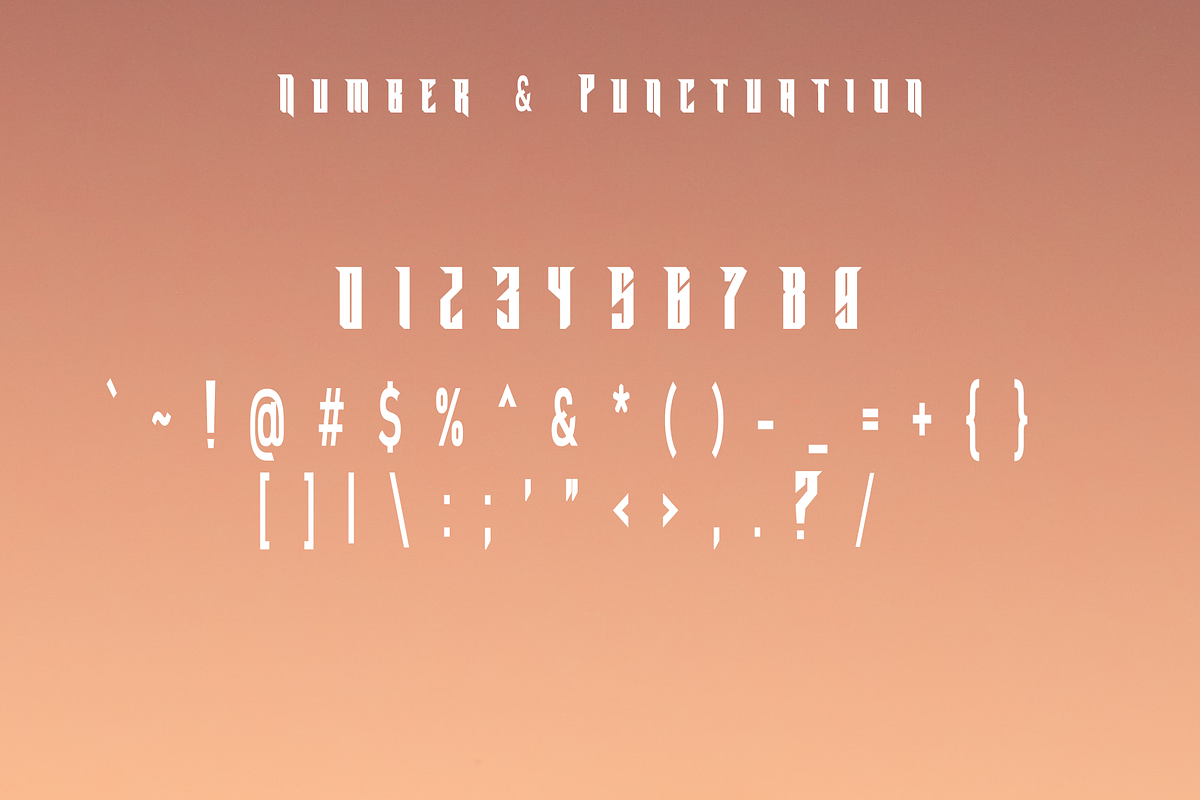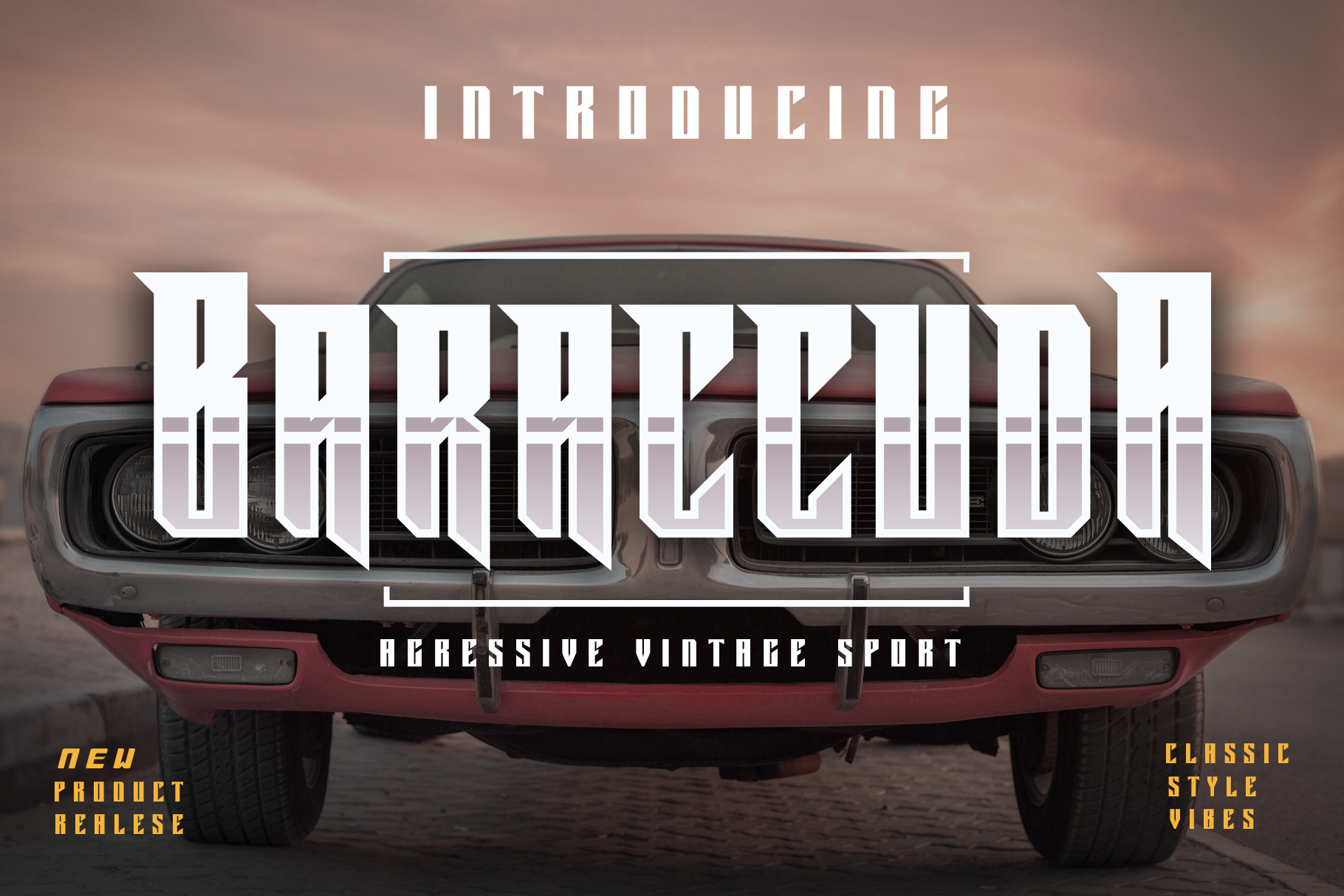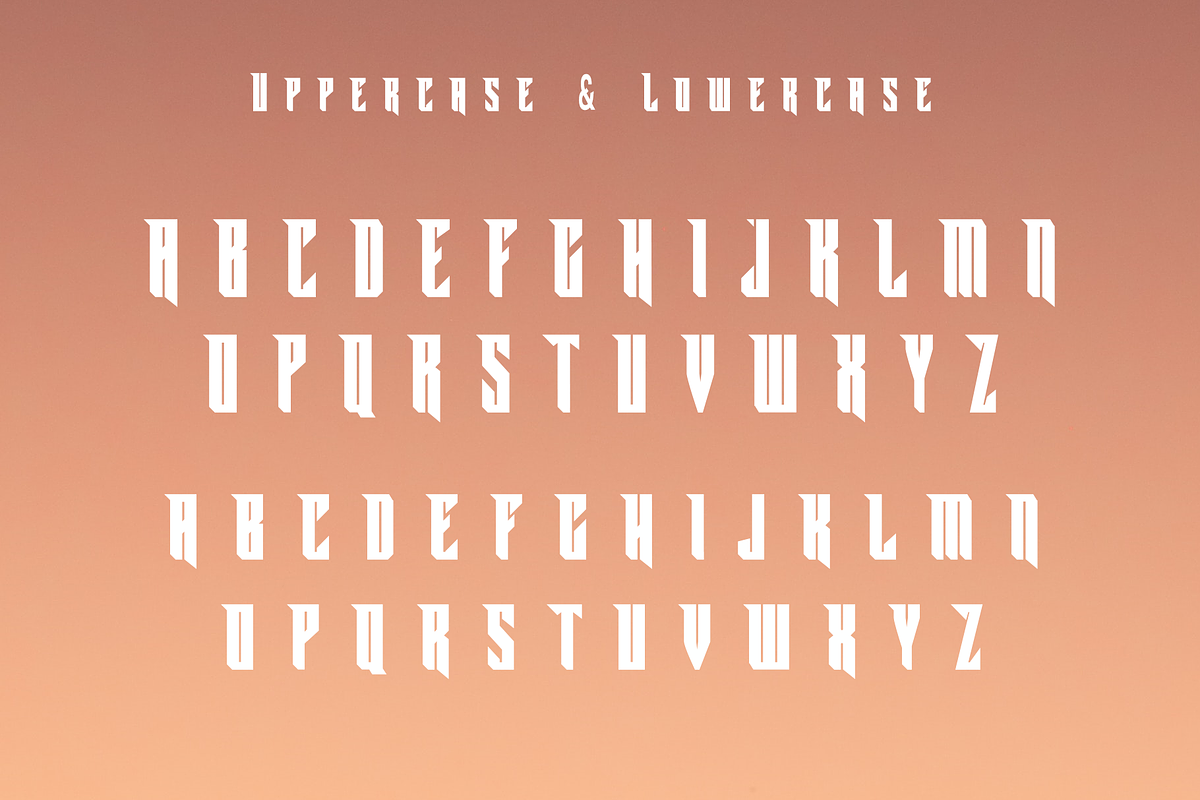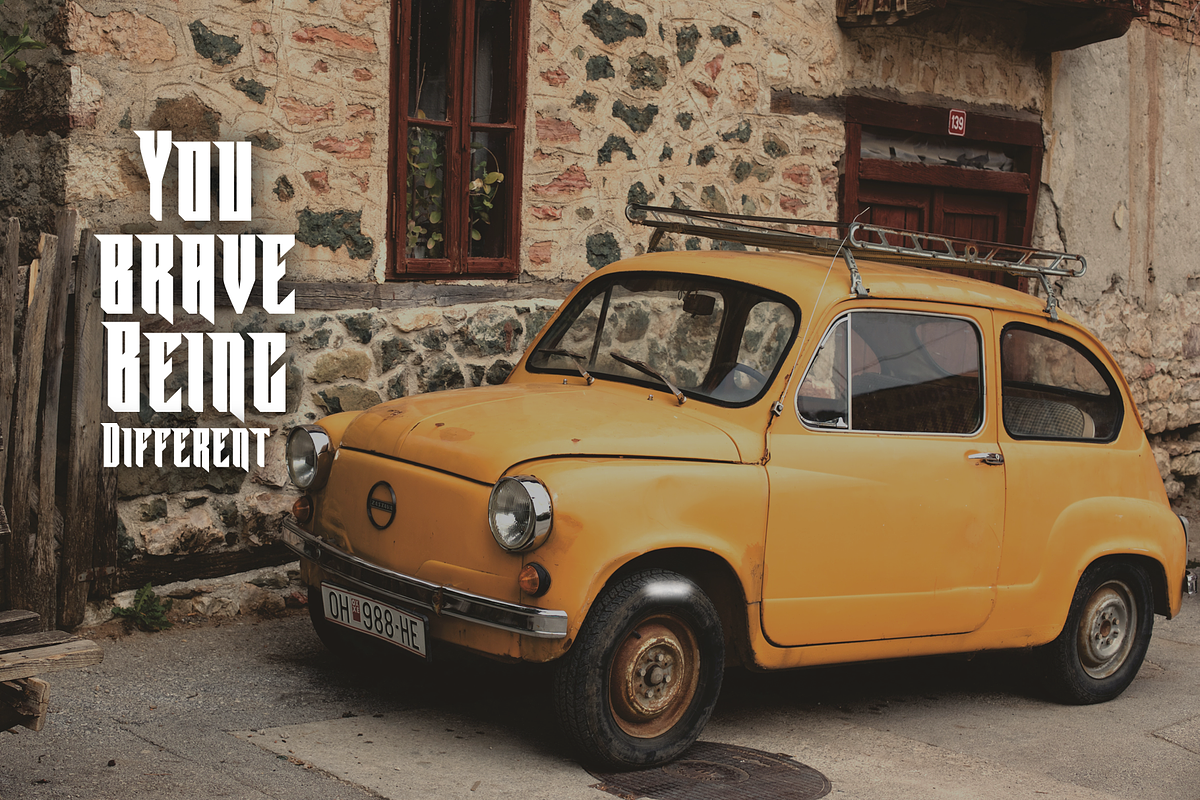
Baraccuda - Aggressive Vintage Font
Introducing Baraccuda, a classic and aggrresive serif font. Its unique and lovely feel. So perfect for you who needs a typeface for logo designs, magazine, social media, brochure, and many more.